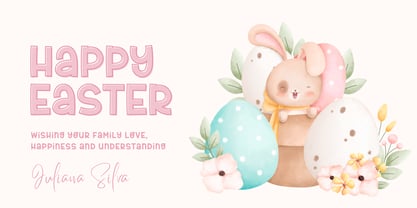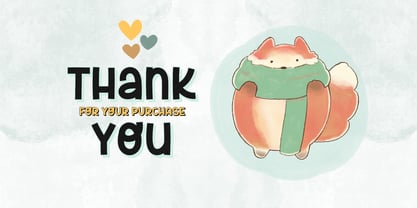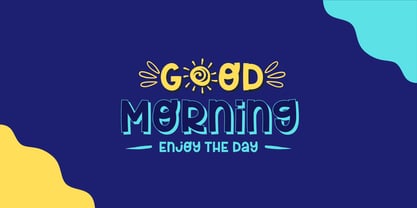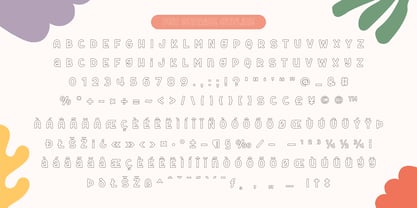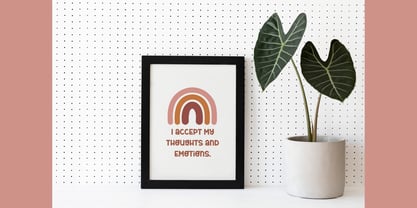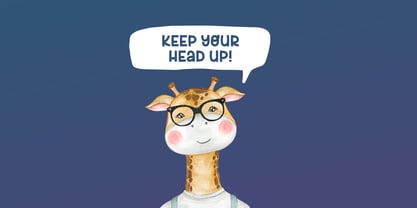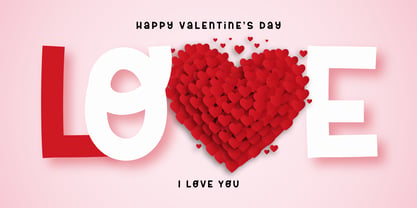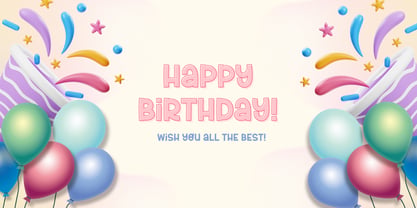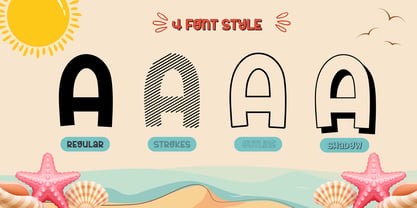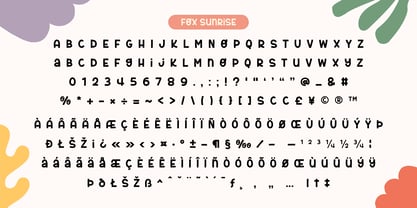
Fox Sunrise
Fox Sunrise is a fun and lively display font inspired by the cheerful energy of beachside mornings. Designed with a bold, hand-drawn aesthetic, this font brings a warm and inviting touch to any project.
Featuring four unique styles—Regular, Strokes, Outline, and Shadow—Fox Sunrise offers versatility for eye-catching headlines, creative branding, posters, kids' designs, and summer-themed projects. Each variation adds a dynamic feel, making it perfect for playful and engaging typography.
Whether you’re designing for a tropical adventure, a children’s book, or a retro-style event, Fox Sunrise is the perfect choice to bring a fresh and sunny vibe to your work!